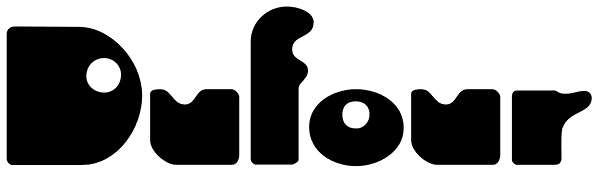
Dufour
Dufour was named in honor of an art deco font called "Independent" designed in the 1930s by Collette and Dufour. "Dufour" is influenced by the original font, however, there are substantial differences: instead of small caps, a true lower case was...
Dufour